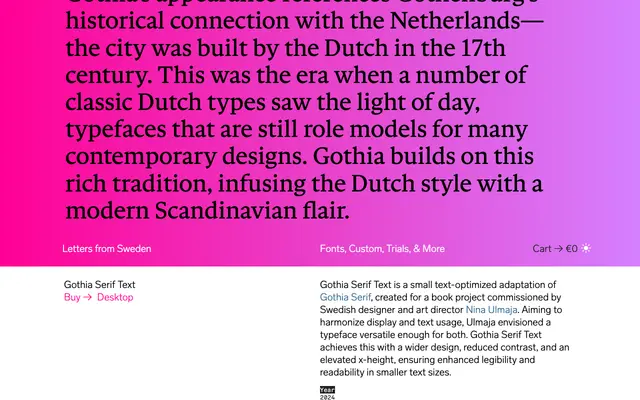
Gothia Serif Text
Letters from Sweden · Göran Söderström · 2024
A text-optimised spin-off of Gothia Serif by Göran Söderström, adapted from a newspaper typeface with Dutch old-style roots for small-size legibility in books and editorial design.
Originally commissioned by Swedish designer Nina Ulmaja for a book project, Gothia Serif Text widens the proportions, reduces stroke contrast and raises the x-height of Gothia Serif to serve continuous reading at small sizes. The parent family was designed for the redesigned Göteborgs-Posten newspaper, drawing on historical Dutch models by Hendrik van den Keere and Christoffel van Dijck alongside contemporary work by Gerard Unger. Two weights, Regular and Book, each with an italic, keep the family compact and purposeful.
Gothia Serif Text draws explicitly on Dutch old-style models from Hendrik van den Keere and Christoffel van Dijck, with a text-optimised adaptation featuring reduced contrast and elevated x-height suited to continuous reading.